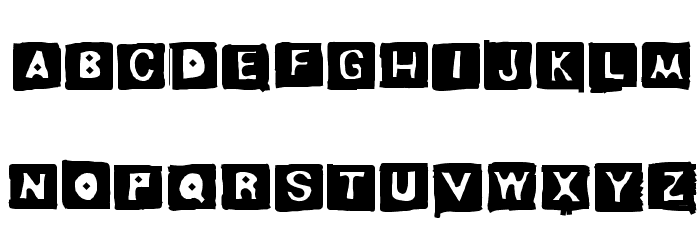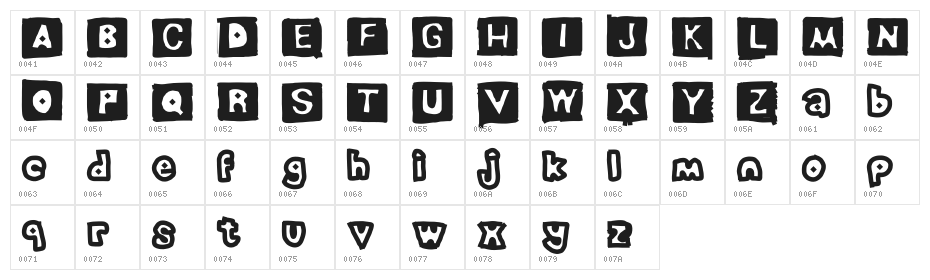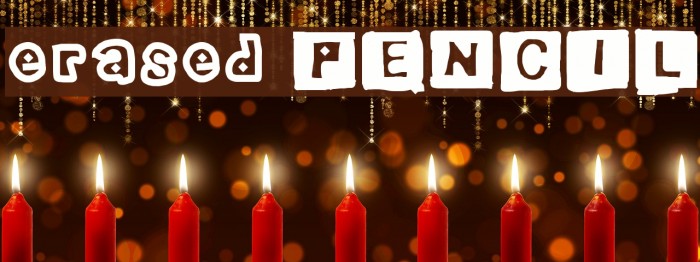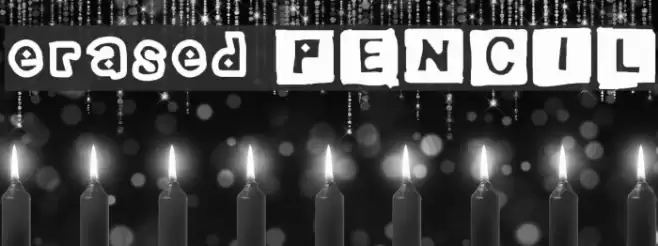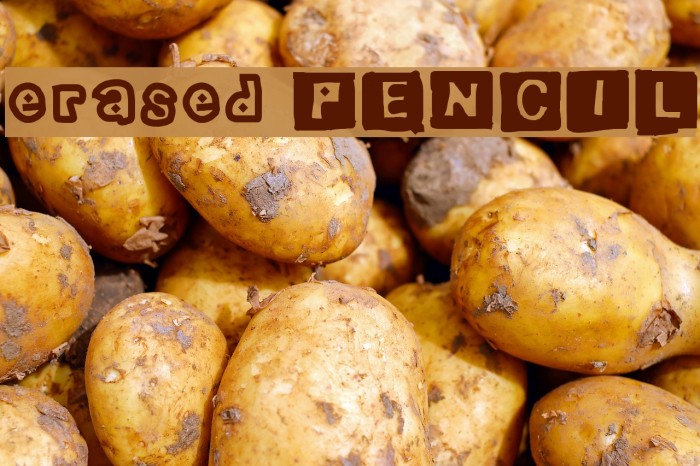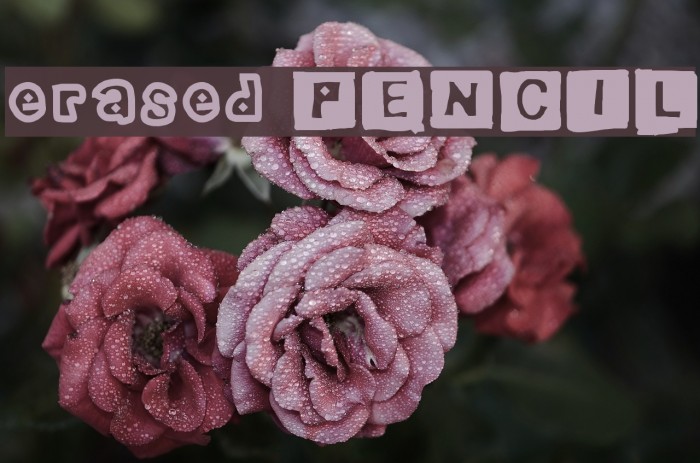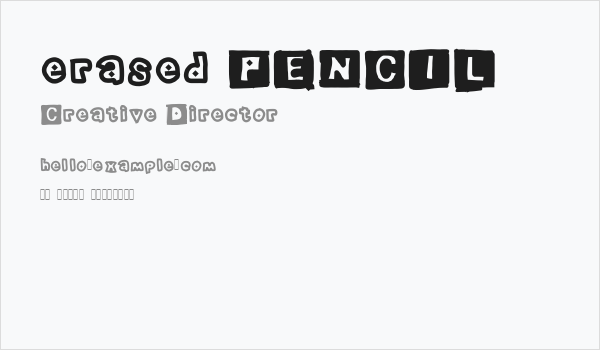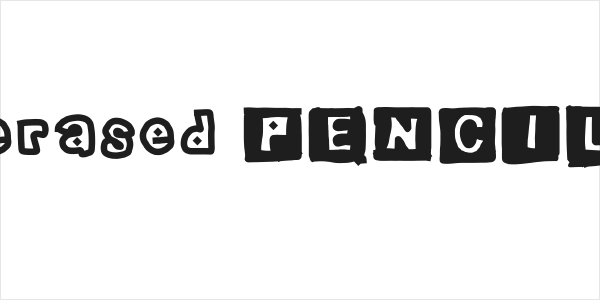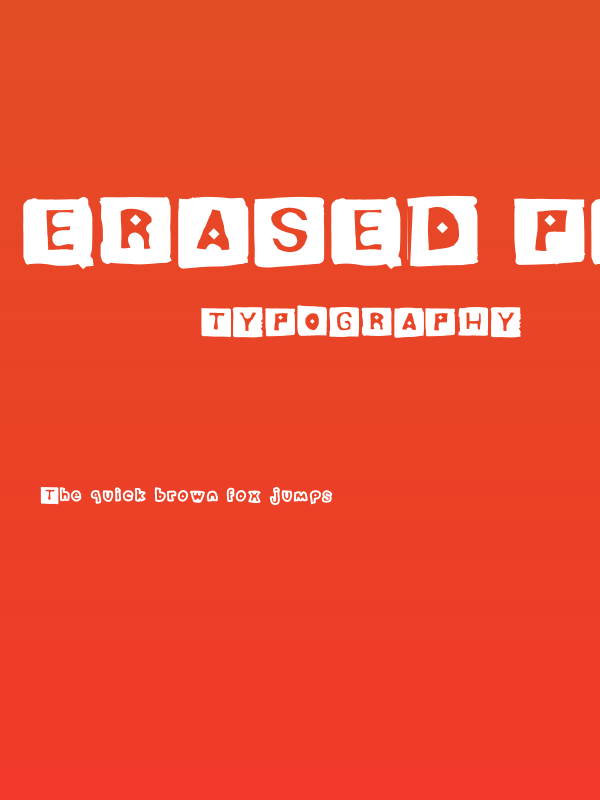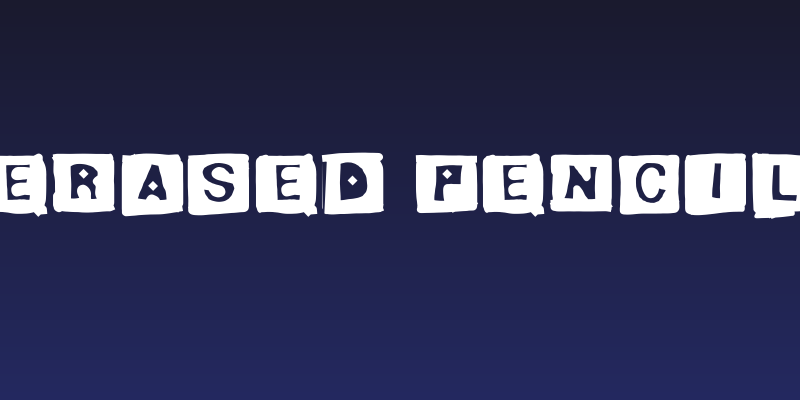
erased PENCIL Font
erased PENCIL Description
This font features a playful and bold design, with each character enclosed in a rough, hand-drawn square, giving it a distinctive and informal appearance. The letters are uppercase and lowercase, with a slightly irregular and whimsical style that suggests a casual, artistic feel. The strokes are thick and uneven, adding to the font's quirky and unique personality. This design is reminiscent of doodles or sketches, making it ideal for projects that require a fun and creative touch. The characters are well-defined, yet maintain a sense of spontaneity and freedom, perfect for capturing attention in a lighthearted context.
| Overall Style | Playful, Artistic |
| Proposed Projects | Ideal for children's books, creative posters, casual branding, and playful invitations. |